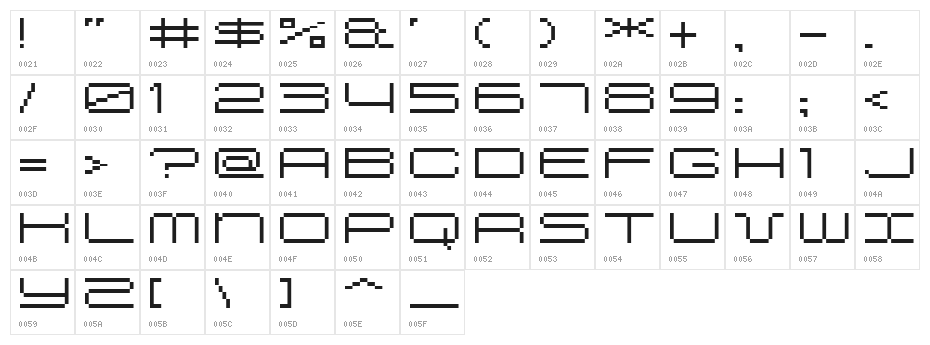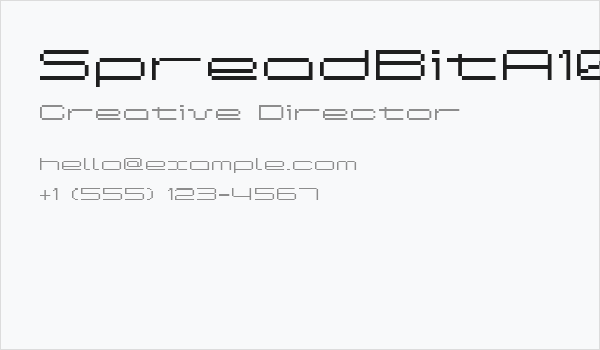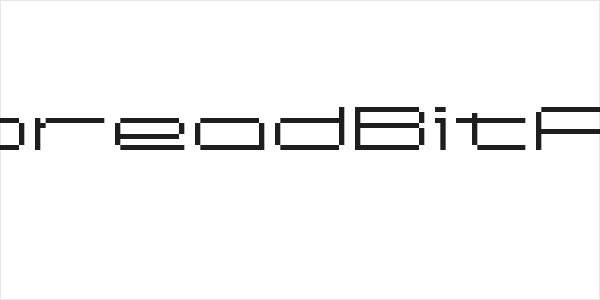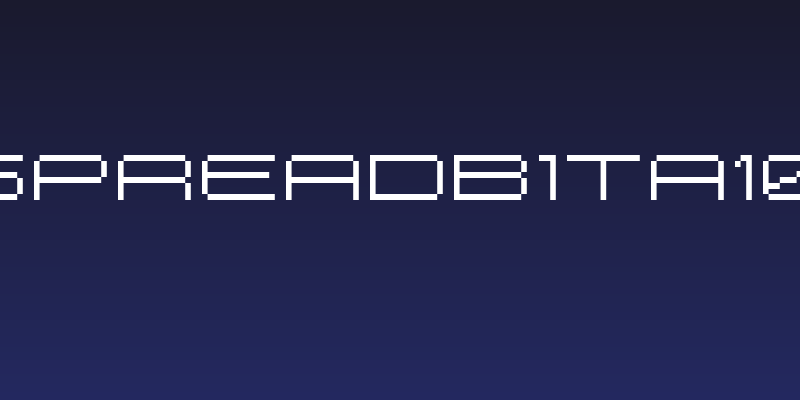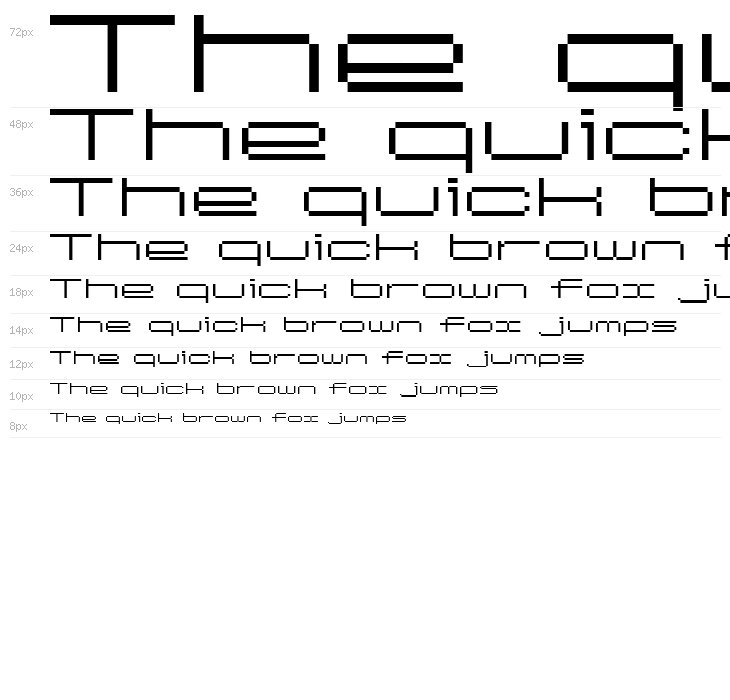
SpreadBitA10 Font
SpreadBitA10 Description
This font features a geometric, grid-like structure with a modern and digital aesthetic. Each character is composed of straight lines and right angles, giving it a pixelated appearance reminiscent of early computer graphics. The uniformity in line thickness and spacing creates a clean and organized look, while the open counters and minimalistic design enhance readability. The font's futuristic style makes it suitable for technology-related themes, digital interfaces, and creative projects that require a contemporary edge.
| Proposed Projects | Ideal for digital interfaces, tech branding, video game design, and futuristic-themed projects. |